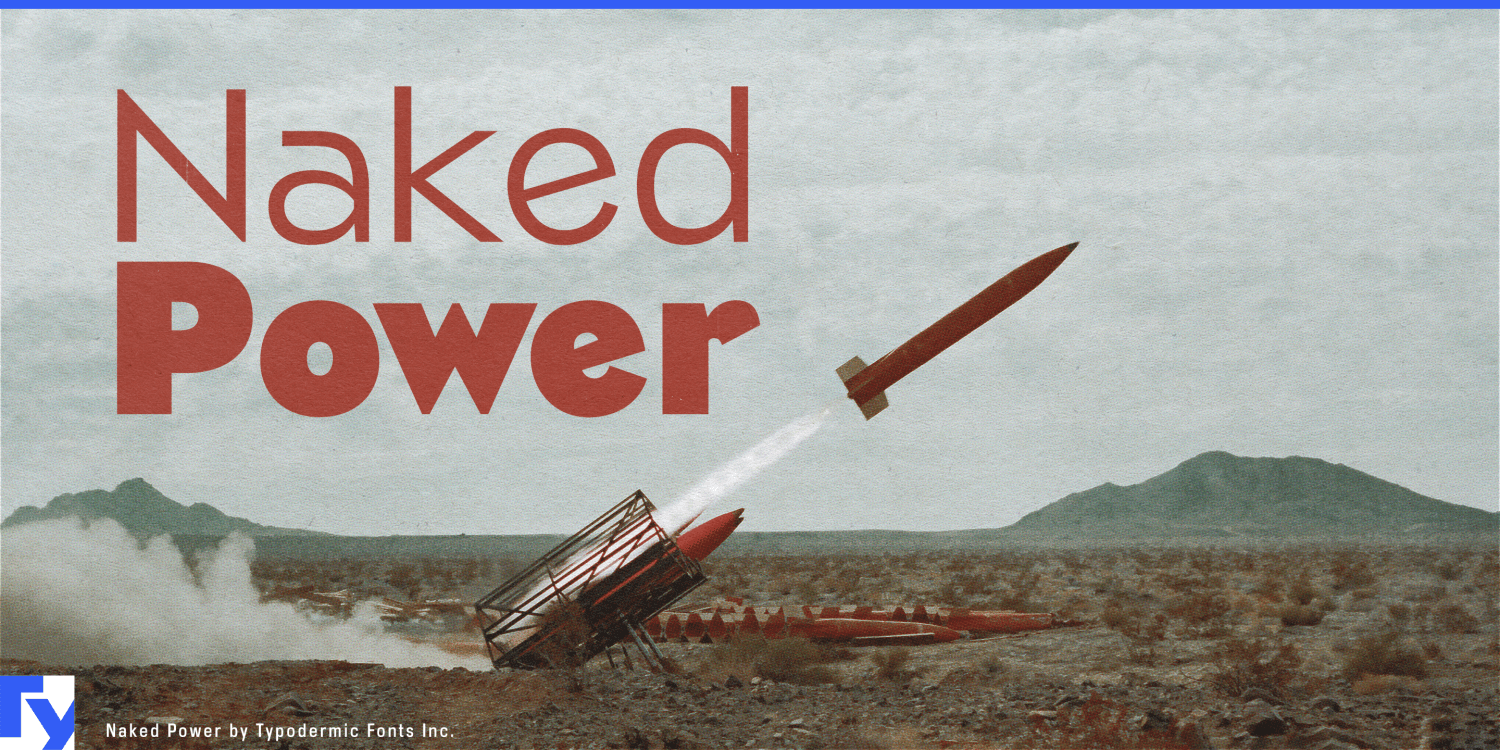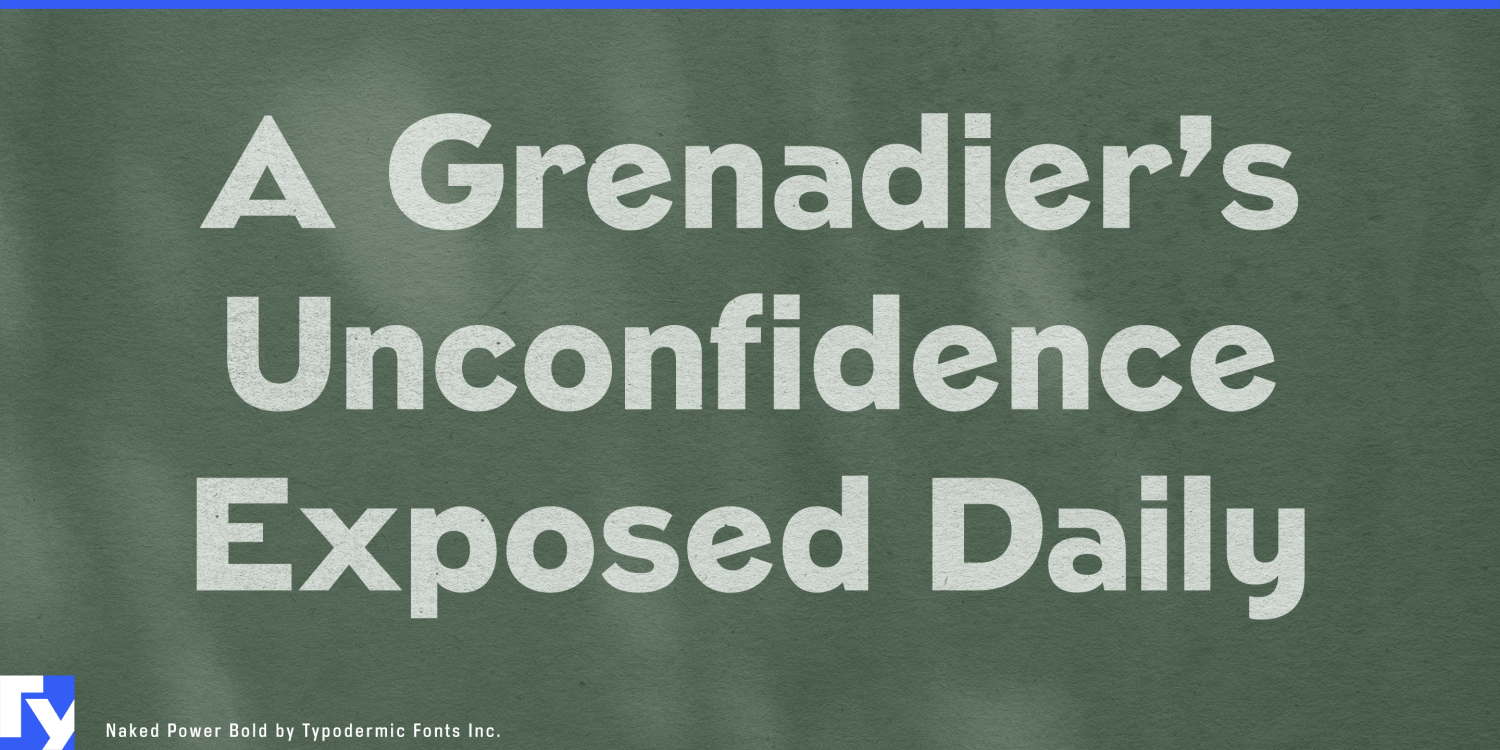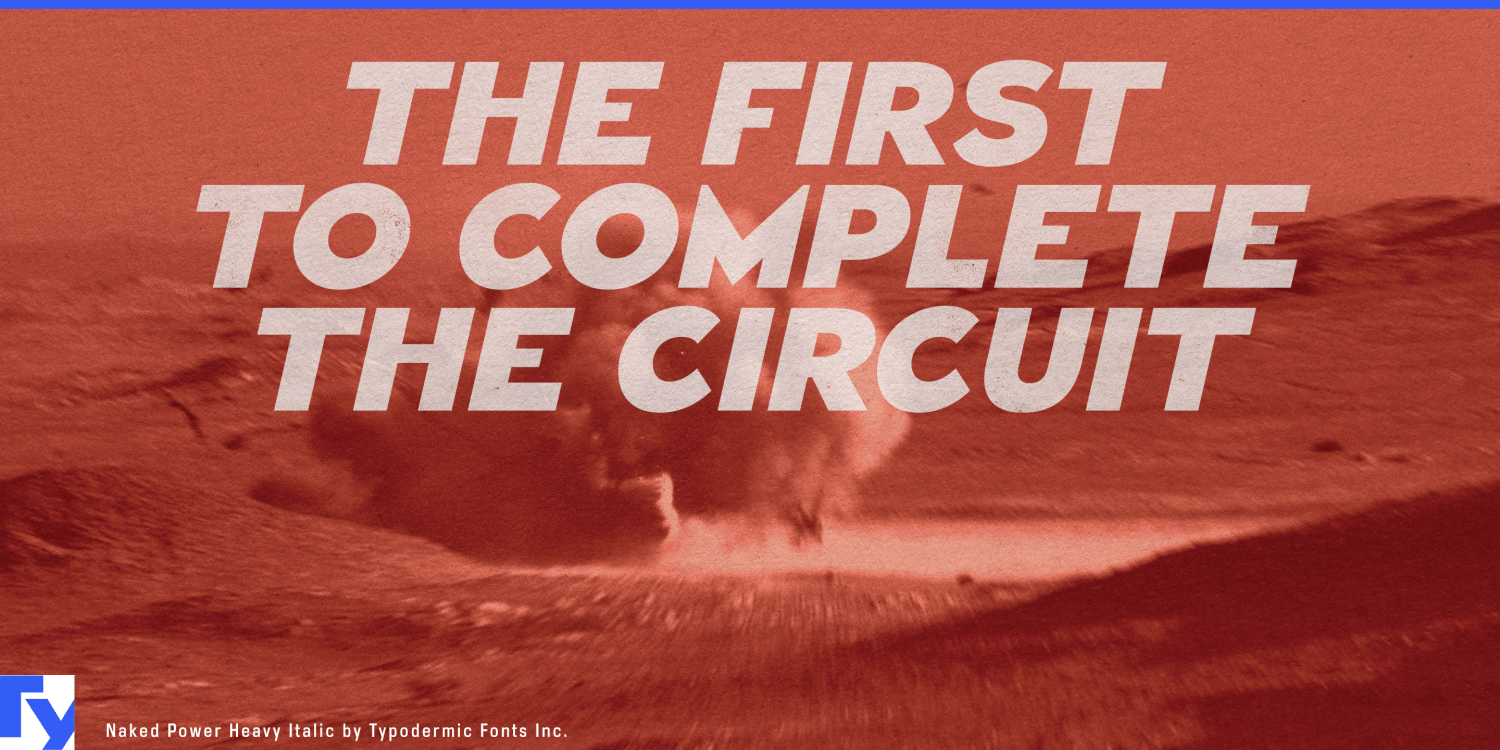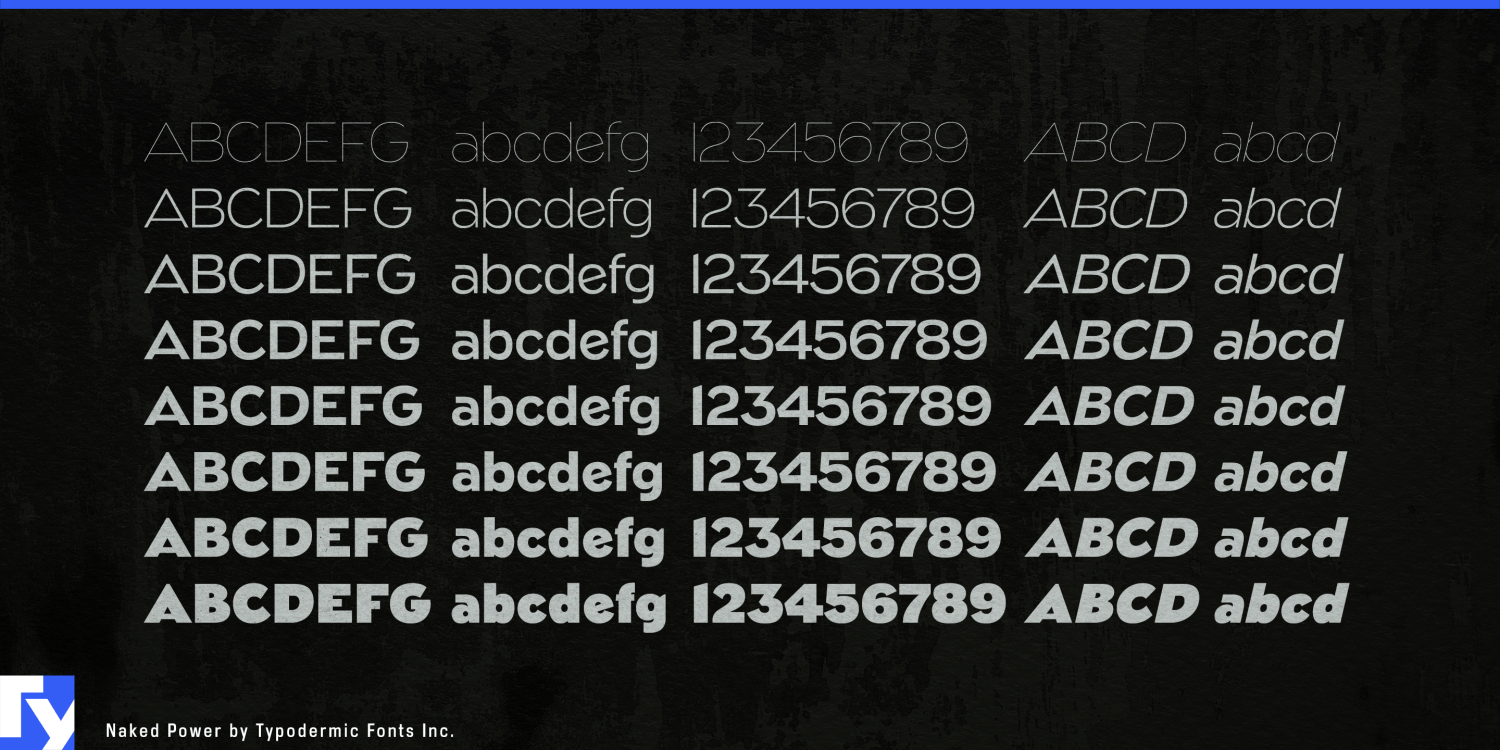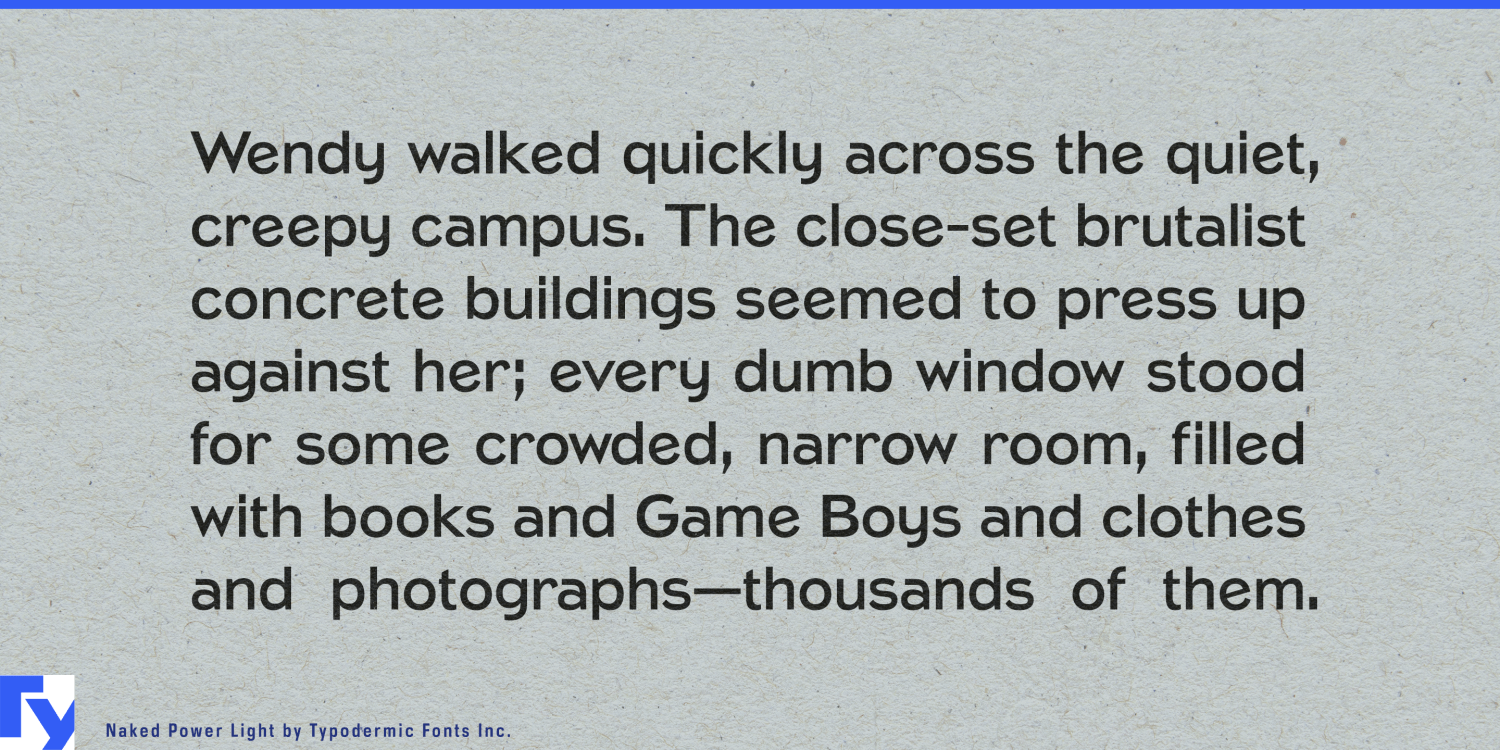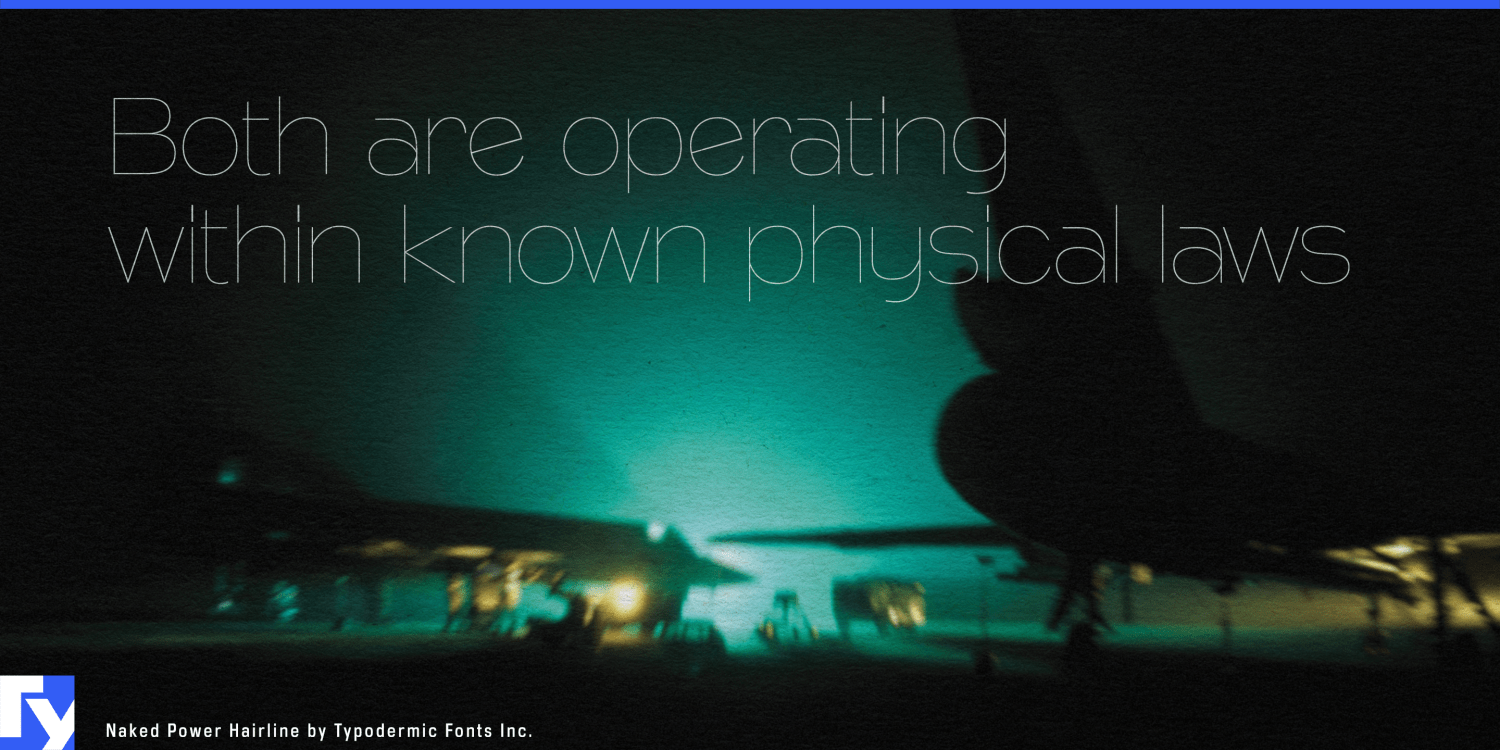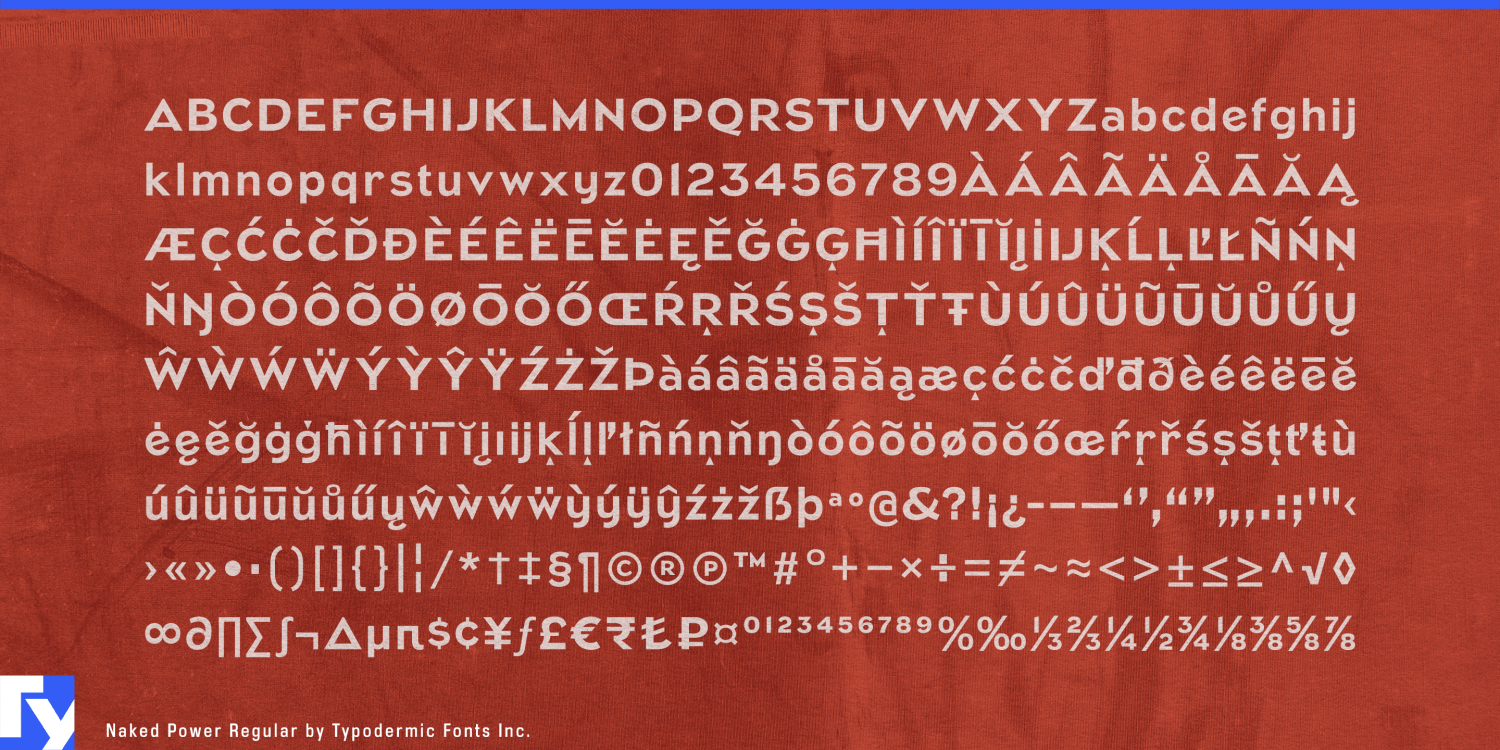
Naked Power
Buy NowMany forceful display faces stop being useful as soon as the slogan ends. Designers then reach for a neutral sans to handle headings, diagrams and supporting information; the identity loses the character that made the headline effective. Naked Power addresses that gap by carrying one low-contrast geometric construction through eight weights from Hairline to Black, each with a matching italic.
Naked Power is particularly useful for architecture, major construction and public infrastructure. Architecture practices and property developers can use the lighter styles for competition-board titles, rendering captions, project books and development presentations; the heaviest styles can take over building names, construction hoardings and opening campaigns. Transit-station rebuilds, modular-housing developments, civic buildings, battery plants and data-center campuses all require identities that remain refined in presentations and unmistakable at the construction site.
Public-information and campaign systems benefit from the same range. A major housing program, transit proposal, climate initiative or ballot campaign needs forceful slogans, but it also needs section headings, timelines, policy summaries and event graphics. Naked Power allows both levels to share the same construction instead of splitting the message between a poster face and a generic supporting sans.
Performance machinery offers a more commercial version of the problem. Motorcycles, racing bicycles, power tools, fitness equipment and specialist vehicles can use the heavier weights for model names, frame graphics and launch headlines; lighter styles can organize specifications, diagrams and dealer material. Strong verticals and squared counters give short names a stable, manufactured shape, while softened joins keep the lighter end from becoming brittle.
Exhibitions and specialized publishing can use the family to build an entire display hierarchy. Architecture biennales, industrial-design museums, transport histories and books about infrastructure need large titles, section headings, timelines, captions and diagram labels. Naked Power keeps those levels related while leaving extended reading to a dedicated text face.